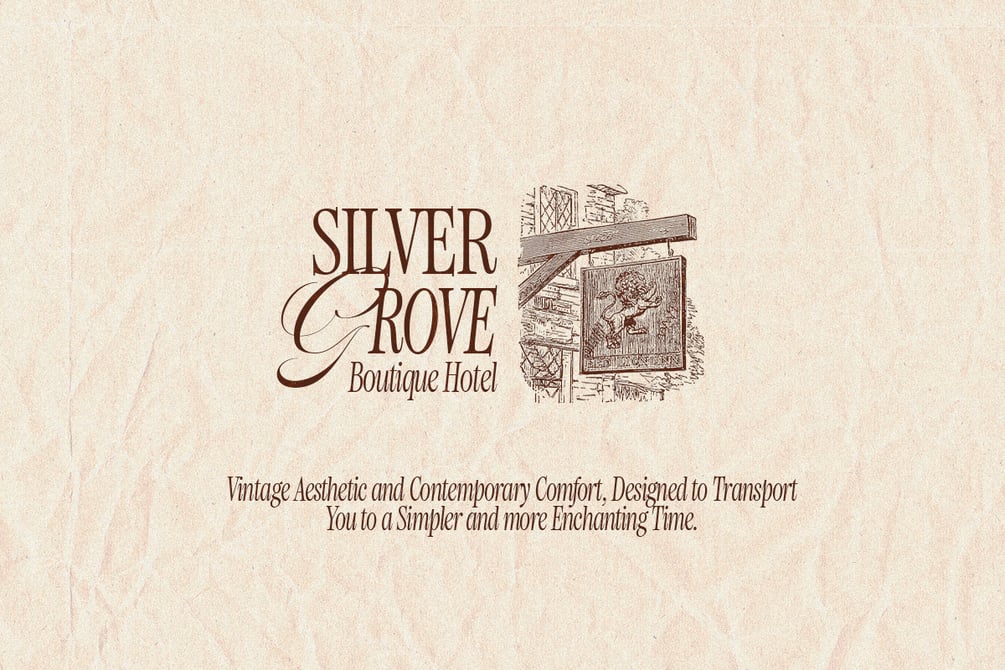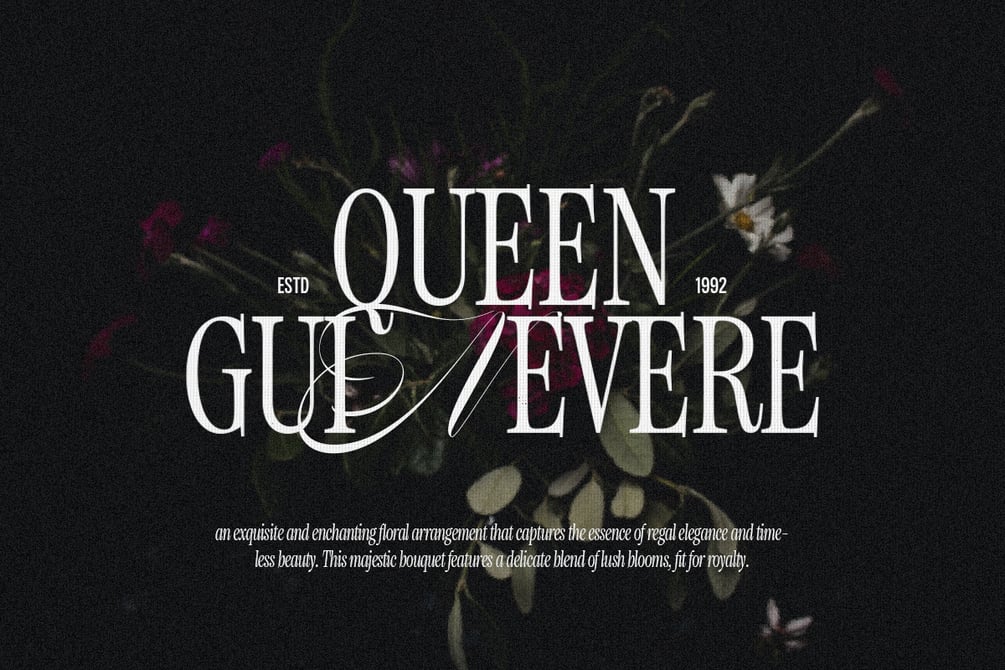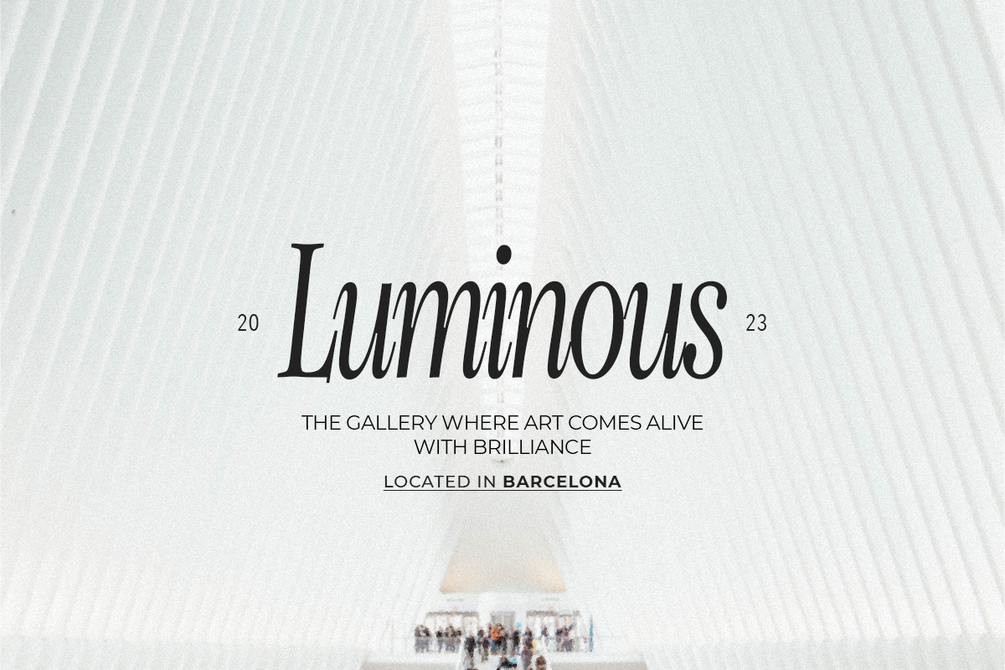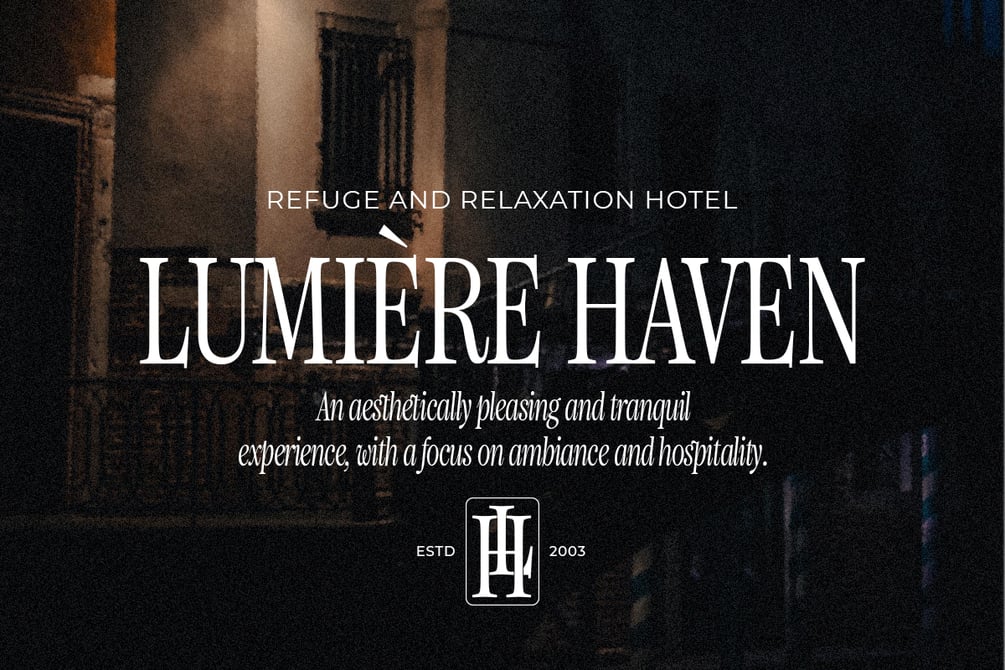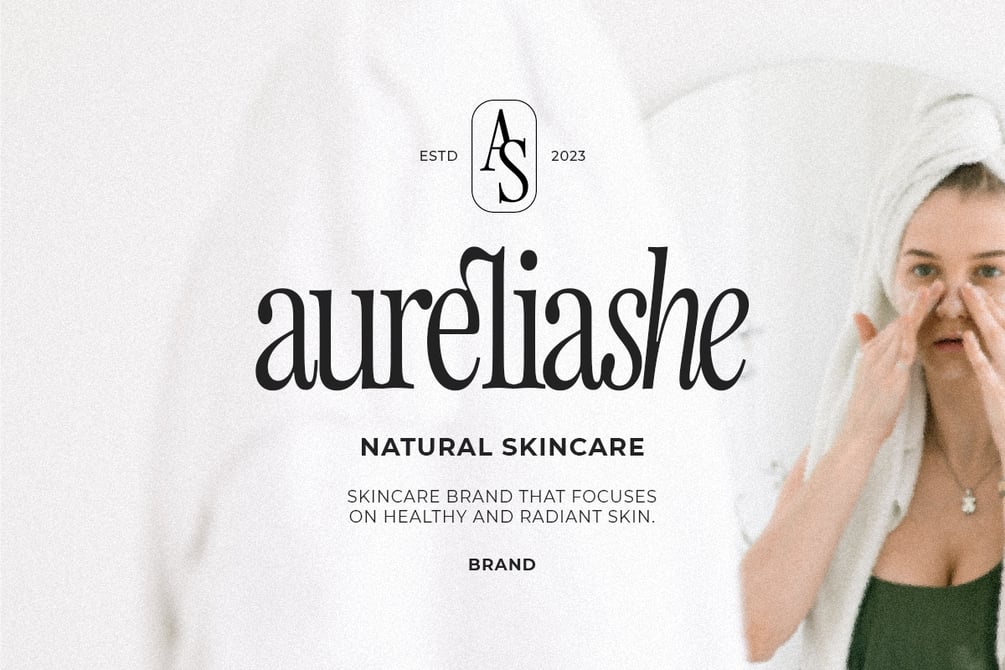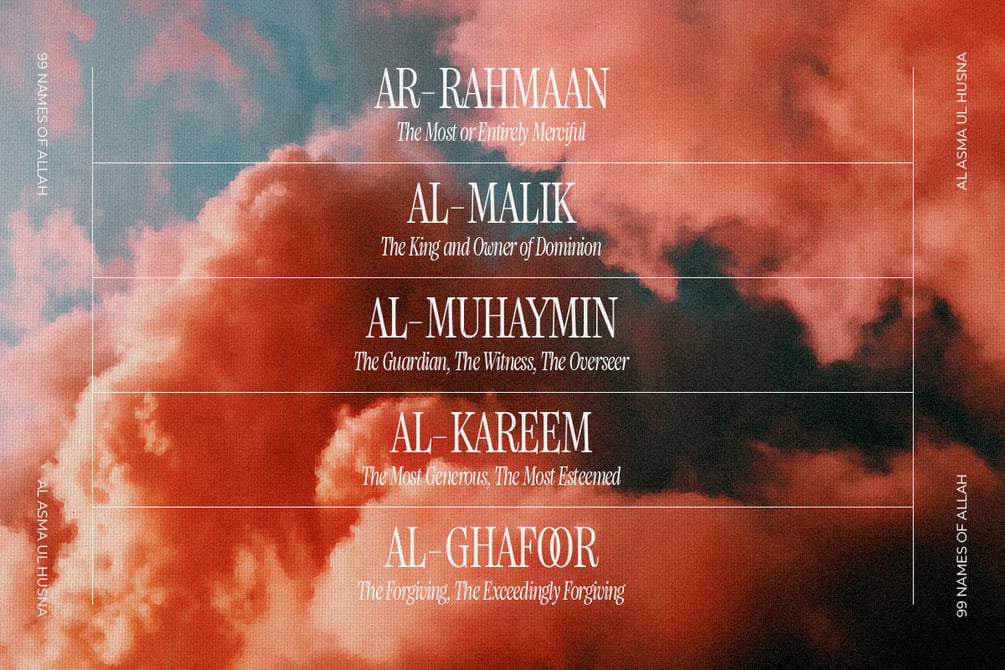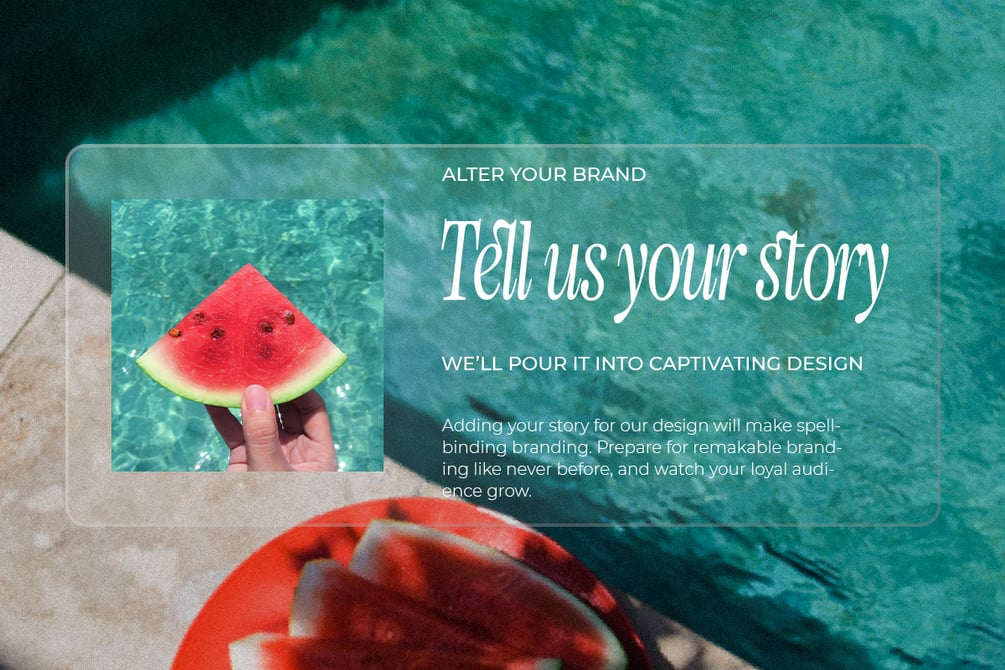
Elyanor
Elyanor is a classic display serif font, drawing inspiration from French Renaissance type. It is available in both regular and italic styles, making it versatile for use in various design projects.
Elyanor's serifs make it perfect for creating headlines and titles that grab attention. Additionally, its classic look lends itself well to editorial design, where it can add a touch of sophistication and elegance to text-heavy layouts.
Features:
• Multilingual Support
• OpenType features including ligature, contextual punctuation & more
2 Font Styles Classic Display Serif with Italic in 379 Glyphs.